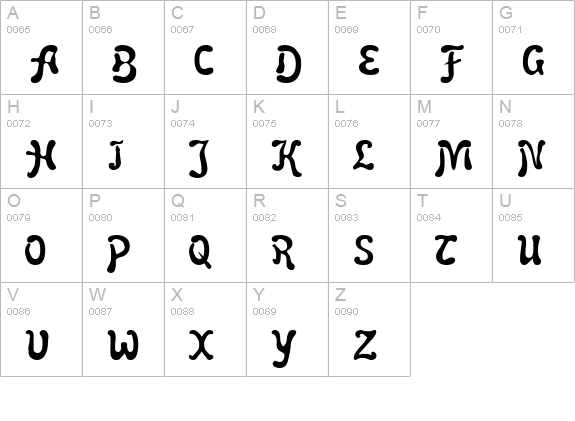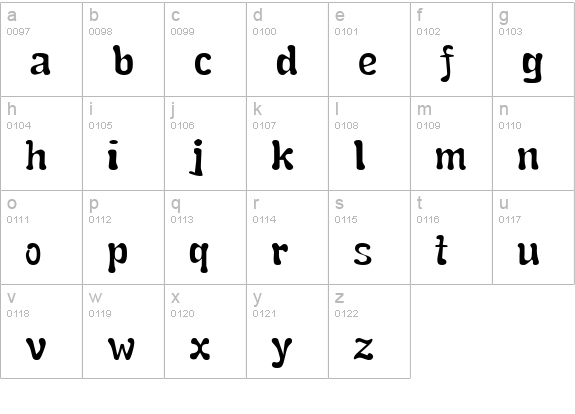
Snail n Ink Font Details
Introducing Snail n Ink font, a stunningly unique and beautifully crafted typeface that will captivate your audience with its elegant and whimsical charm. This font takes inspiration from the delicate trails left behind by a snail as it glides effortlessly across a page, while capturing the essence of ink flowing from a pen. Snail n Ink font features a perfect balance of organic curves and precise lines, resulting in a harmonious blend of sophistication and playfulness. Its graceful strokes and intricate details lend a touch of individuality to any project, making it ideal for branding, logo design, invitations, and more. What makes this font even more remarkable is that it is available for free download exclusively at FontsMarket.com. Yes, you read that right - Snail n Ink font can be yours without spending a penny! Now, you can elevate your designs without breaking the bank, allowing your creativity to soar without limitations. Whether you're a professional designer looking to add a touch of whimsy to your portfolio or a hobbyist seeking a font that exudes charm, Snail n Ink font is the perfect choice. With its wide range of glyphs and versatility, you'll find endless possibilities to make your projects truly stand out. So don't miss out on this incredible opportunity to enhance your designs with Snail n Ink font. Head over to FontsMarket.com now and download it for free. Experience the joy of creating with a font that embodies the beauty of nature and the elegance of ink. Let Snail n Ink font take your designs to new heights today!